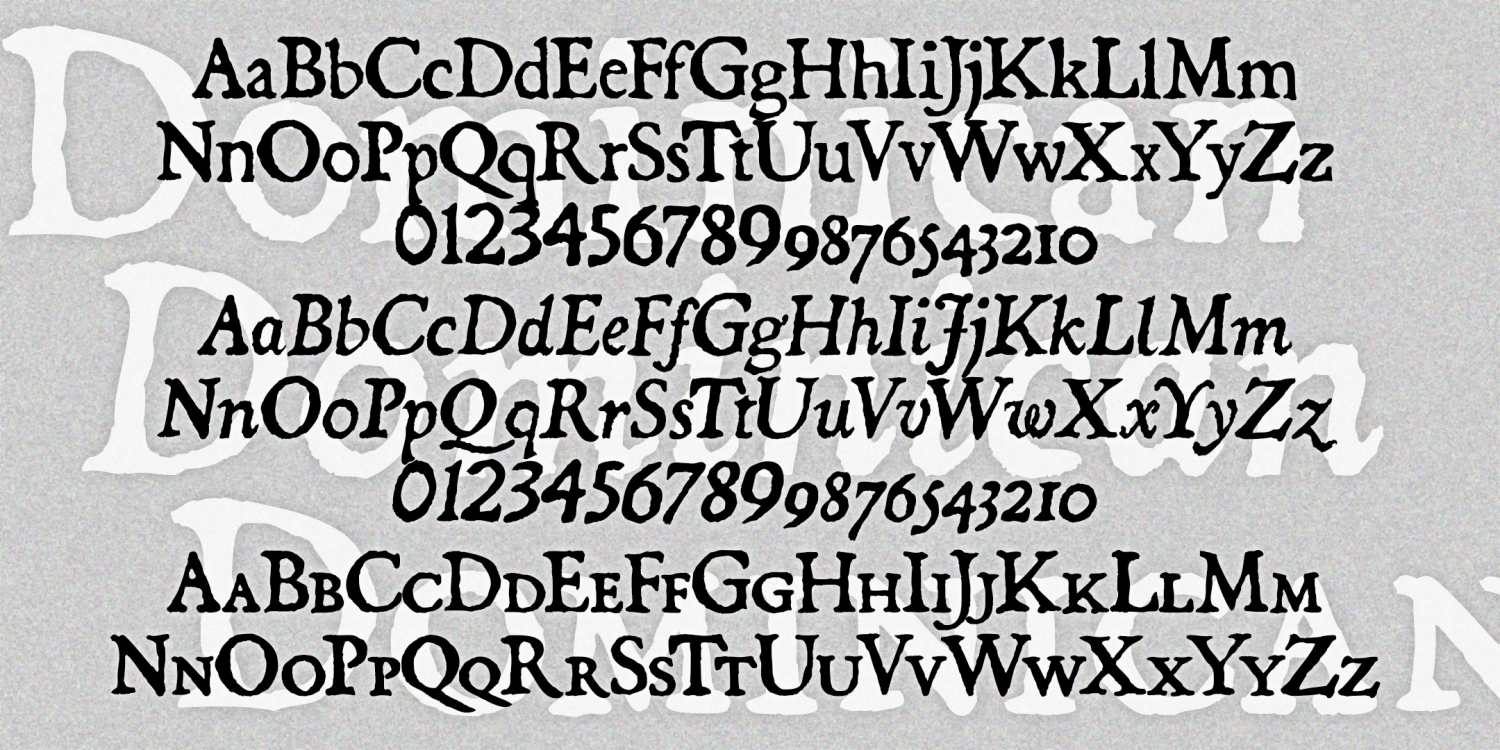
Dominican
About Dominican
The Dominican fonts are designed to look like old letterpress printing. Inspired by an analog font from Dan X. Solo's books, I expanded the series to also include Italic and Small Caps. Version 3.0 now contains lining figures with the old-style figures…